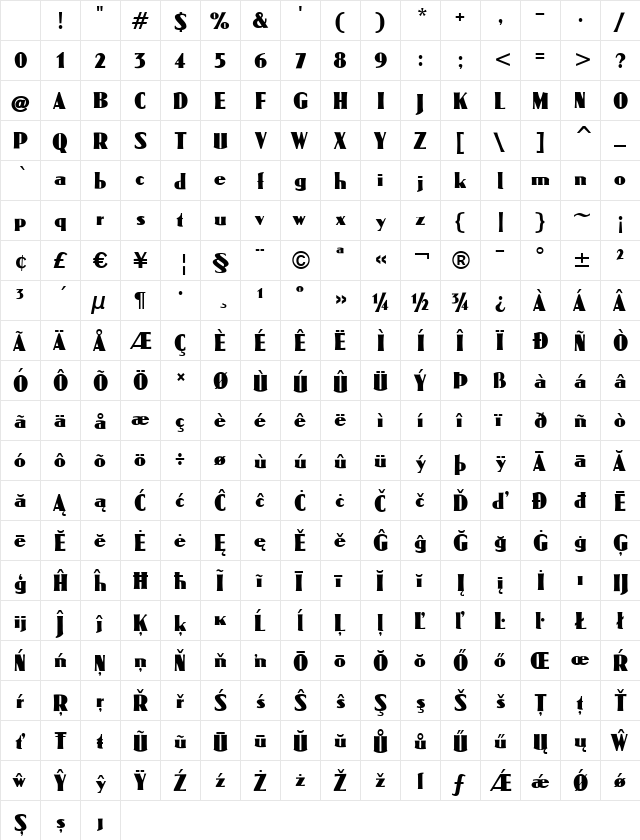
Omega CAT is a composed and adaptable typeface that performs quietly and consistently across a wide range of design contexts.
Pro Tip: Use Omega CAT in both headline and body roles to test its range before committing to a single application.